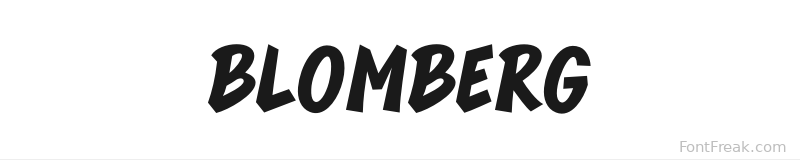
BLOMBERG
BLOMBERG by MaknaStudio is a striking display font that captures attention with its unique personality. This font falls into the decorative category, making it ideal for projects that require a bold and artistic flair. The visual characteristics of BLOMBERG are defined by its thick, expressive strokes and fun, exaggerated curves, which create a dynamic contrast. The spacing is carefully designed to enhance legibility while maintaining an engaging aesthetic, making it suitable for various creative applications.
This font shines in several specific use cases. Its vibrant style is perfect for wedding invitations, where it can add a whimsical touch to the overall design. Additionally, BLOMBERG is an excellent choice for movie posters, giving titles a dramatic and eye-catching presence that draws viewers in. Restaurant menus can also benefit from this font, as it adds a unique character that can enhance the dining experience. Furthermore, BLOMBERG works well for promotional materials, such as flyers and social media graphics, where an impactful visual statement is crucial.
The target audience for BLOMBERG includes graphic designers, small business owners, and content creators looking to elevate their projects with a distinctive font. Whether you are designing for print or digital media, BLOMBERG offers versatility that can adapt to various themes and purposes.
In conclusion, BLOMBERG stands out not only for its bold and playful design but also for its ability to infuse personality into any project. Its free availability as a freeware font makes it an accessible choice for those seeking to create memorable designs. Consider the BLOMBERG font free download to bring a touch of creativity and excitement to your next design endeavor.